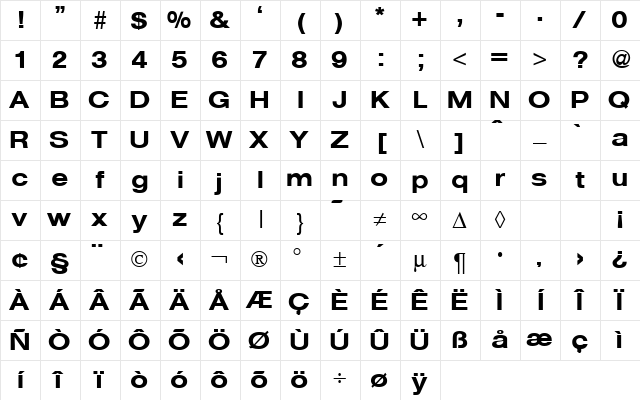
Complete HegelExtendedMedium Regular glyph index. Displaying only characters natively supported by HegelExtendedMedium Regular font.
HegelExtendedMedium is a composed and adaptable typeface that performs quietly and consistently across a wide range of design contexts.